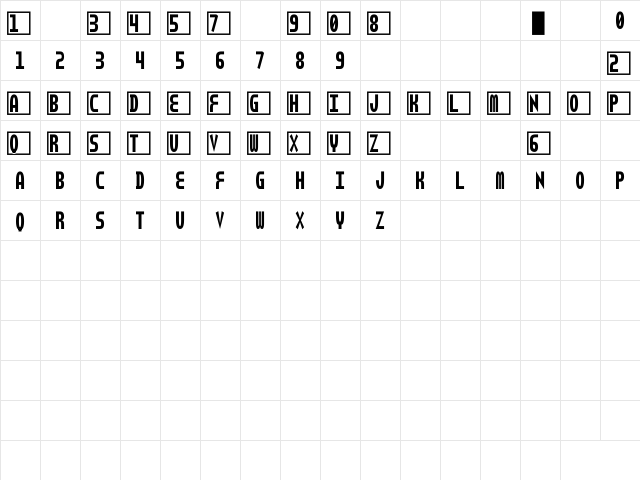
Torturer Crushed Regular
| Foundry | Starving-4 Entertainment |
| Designer | Darren Rigby |
Design Context for Torturer Crushed Typeface
Torturer Crushed takes a measured approach to typography — its balanced proportions and neutral character make it a reliable workhorse for both digital and print work.